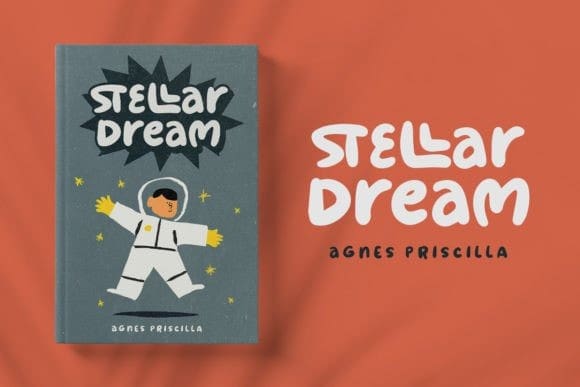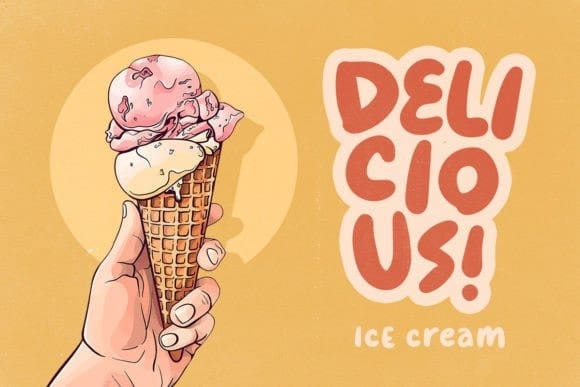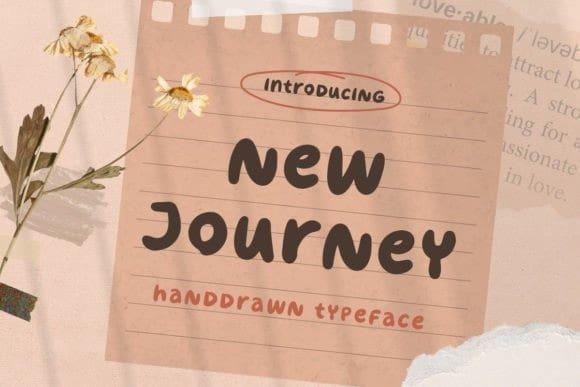
New Journey Font
New Journey Font is a cute and friendly handwritten display font. Its charming and playful personality is perfect for creating a wide range of designs that require a lovely accent.